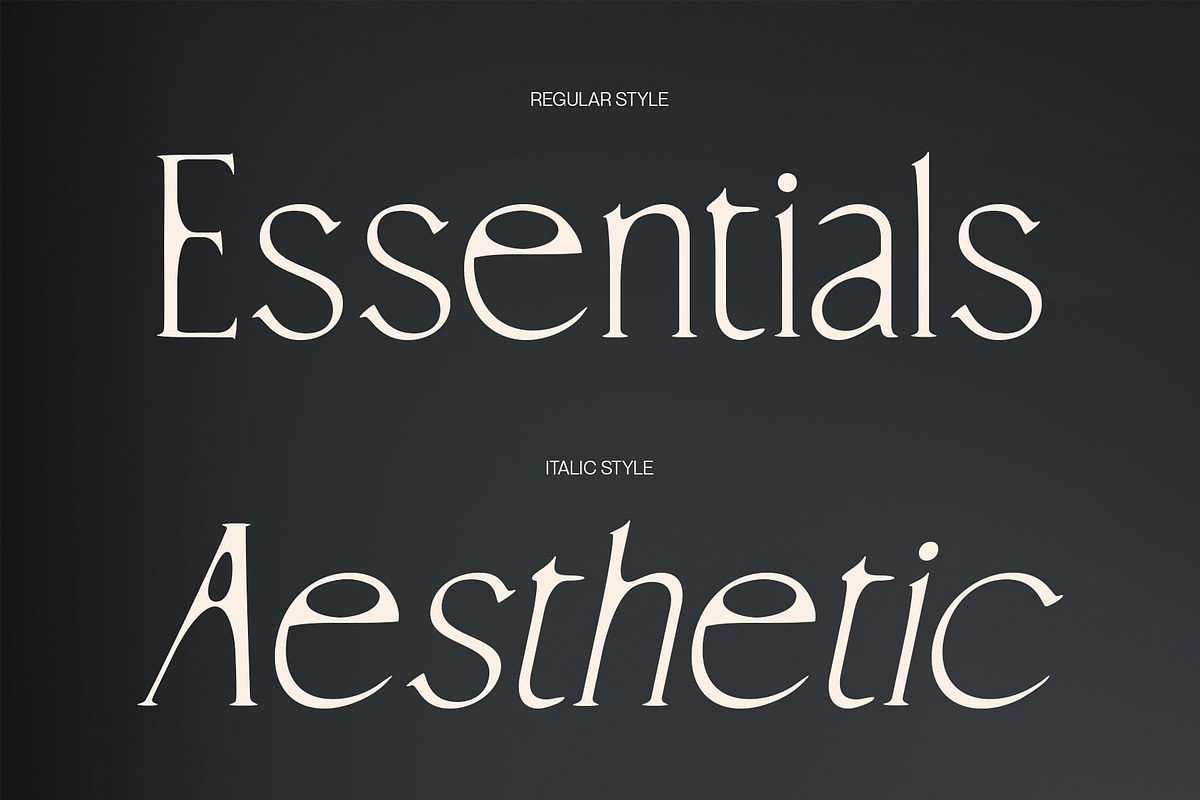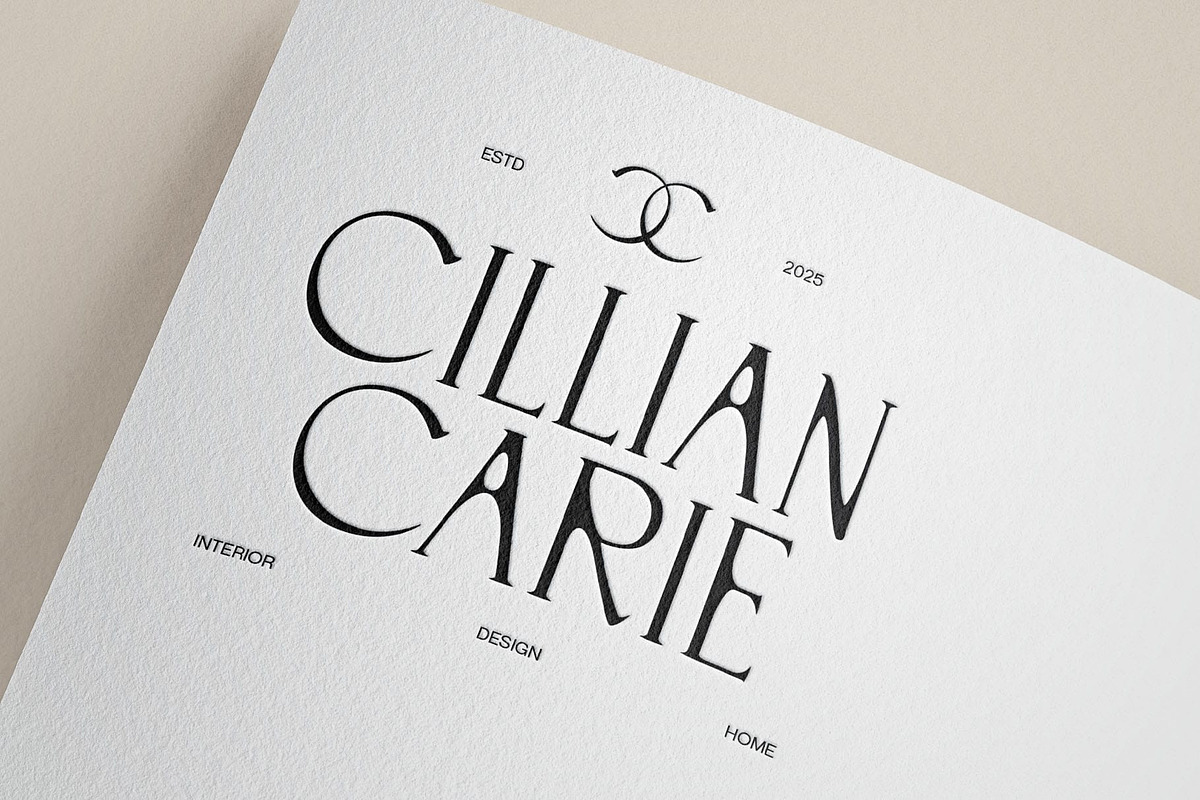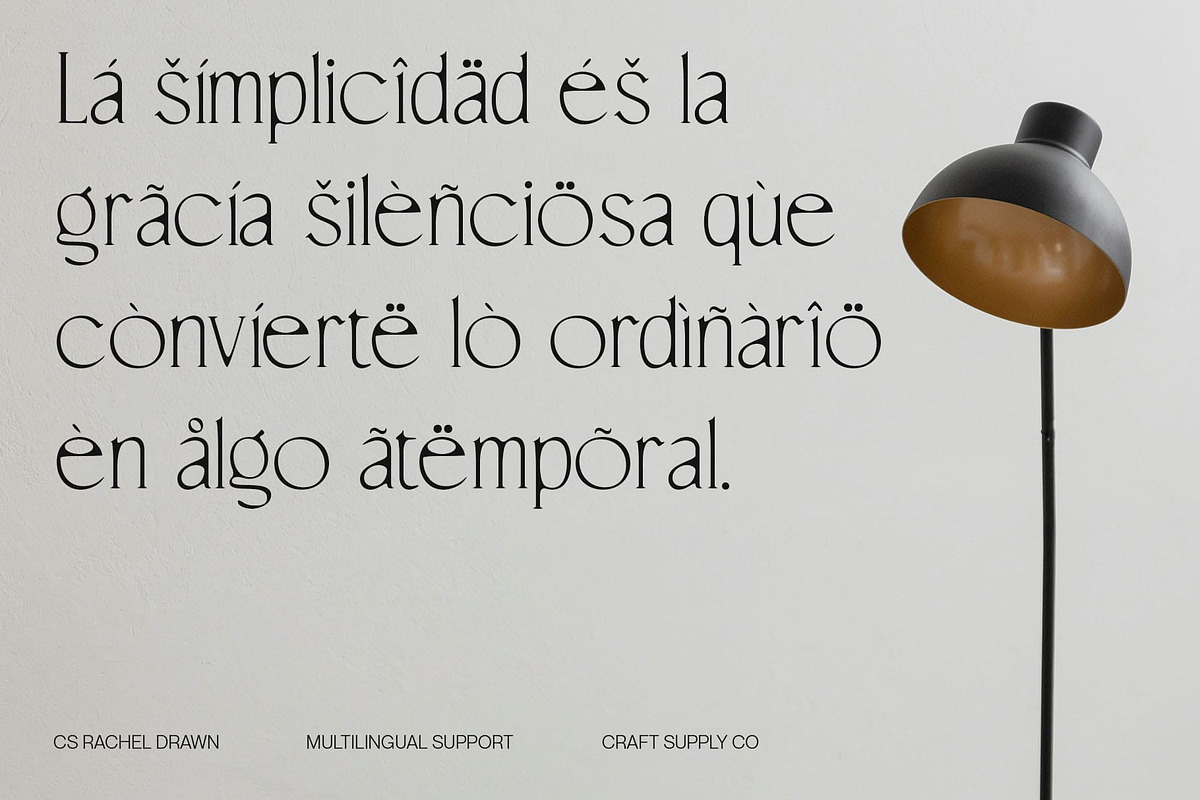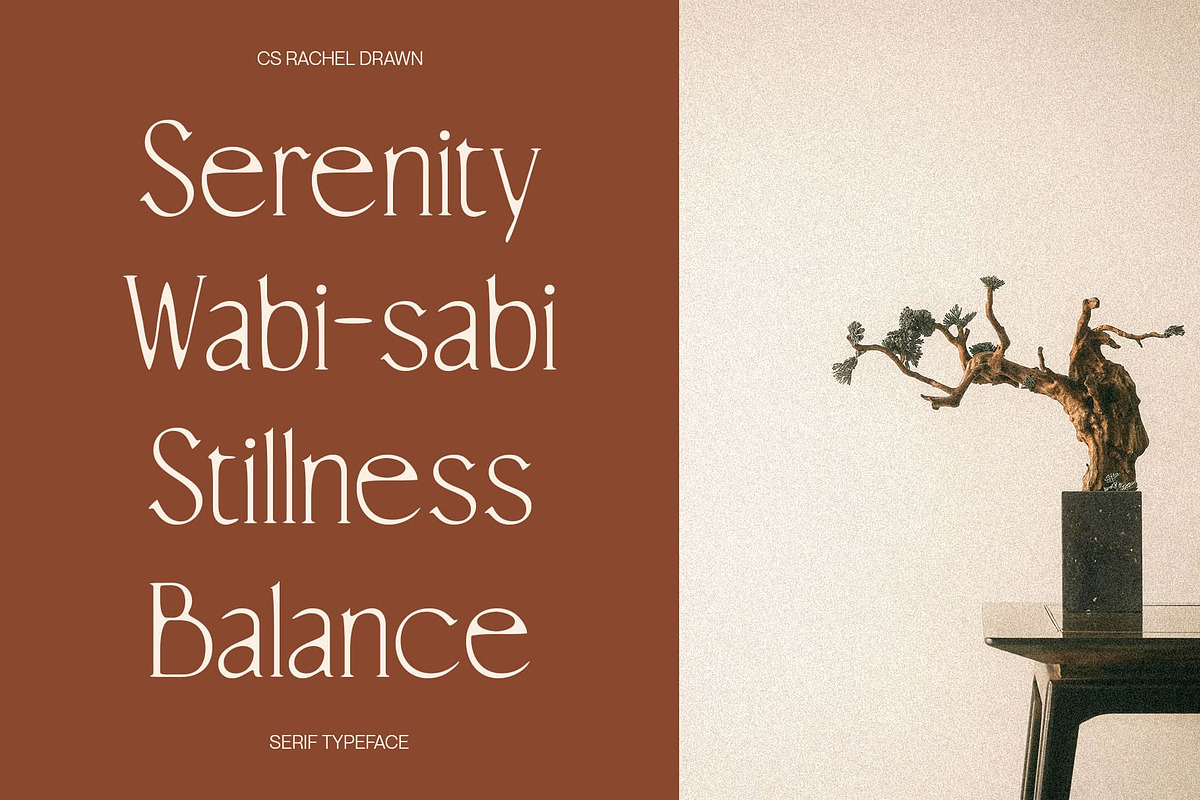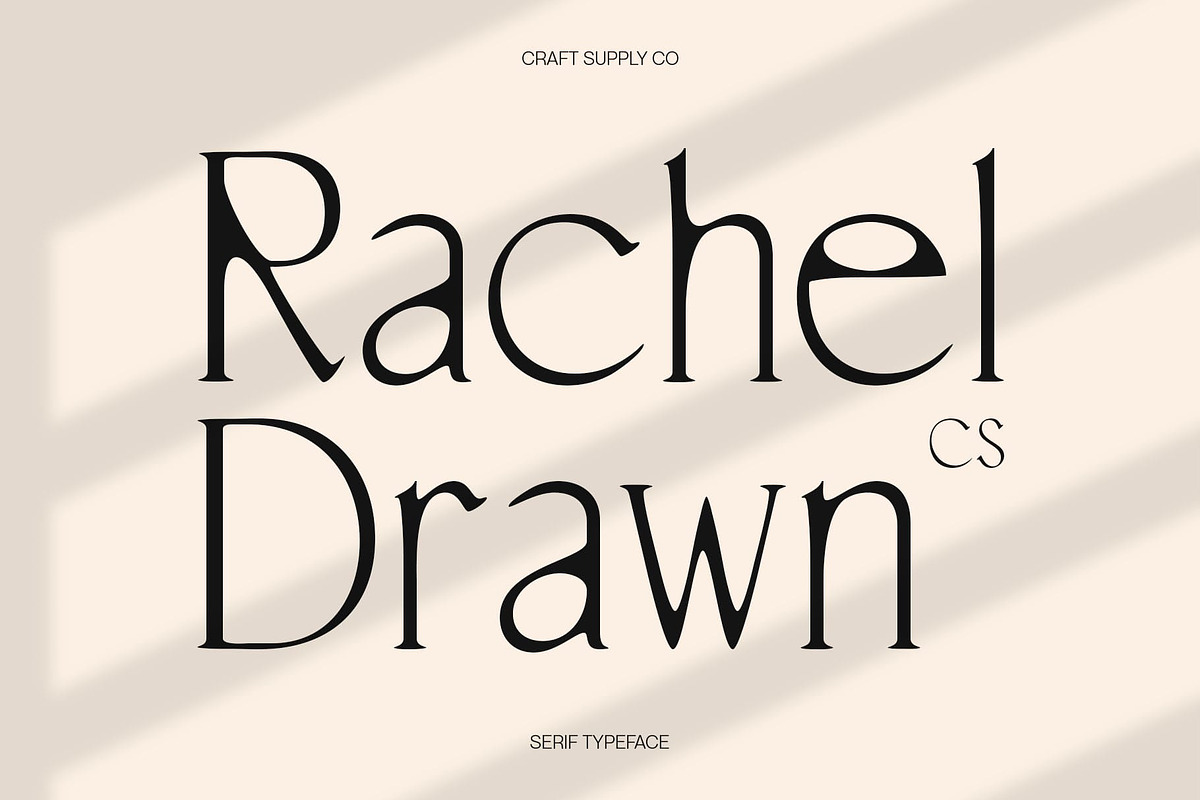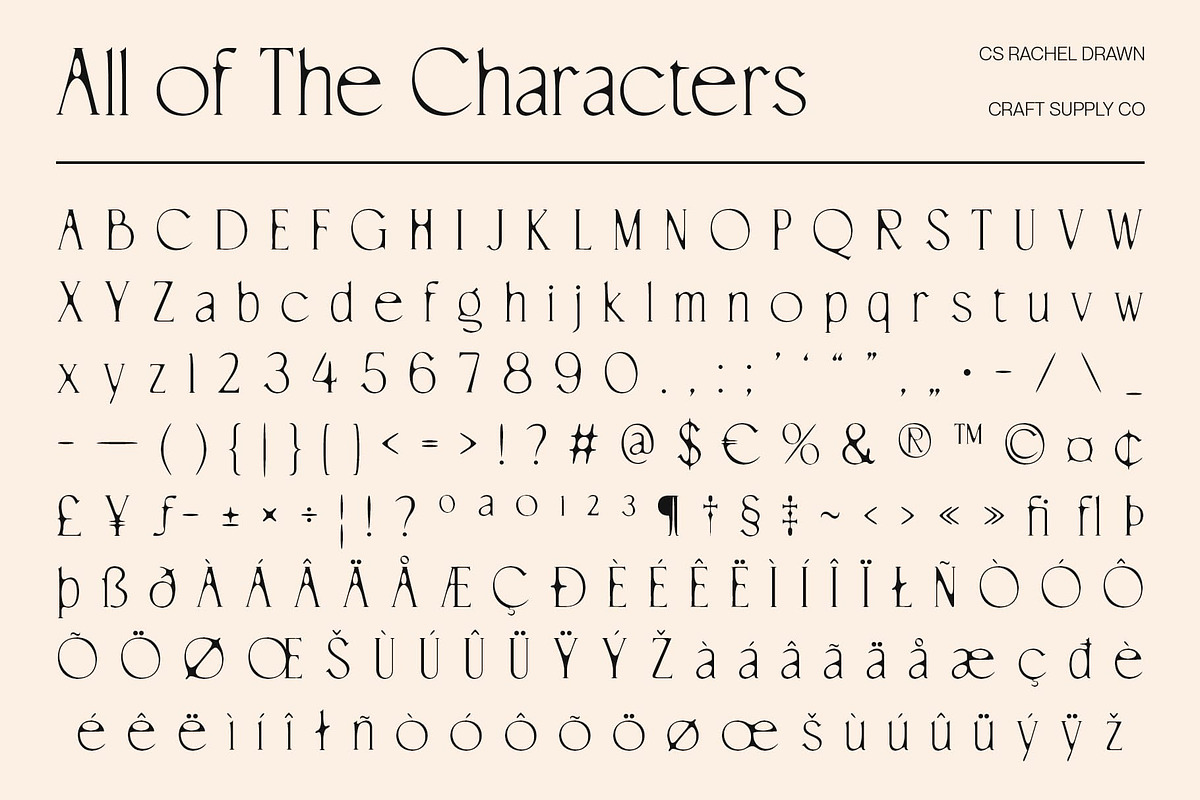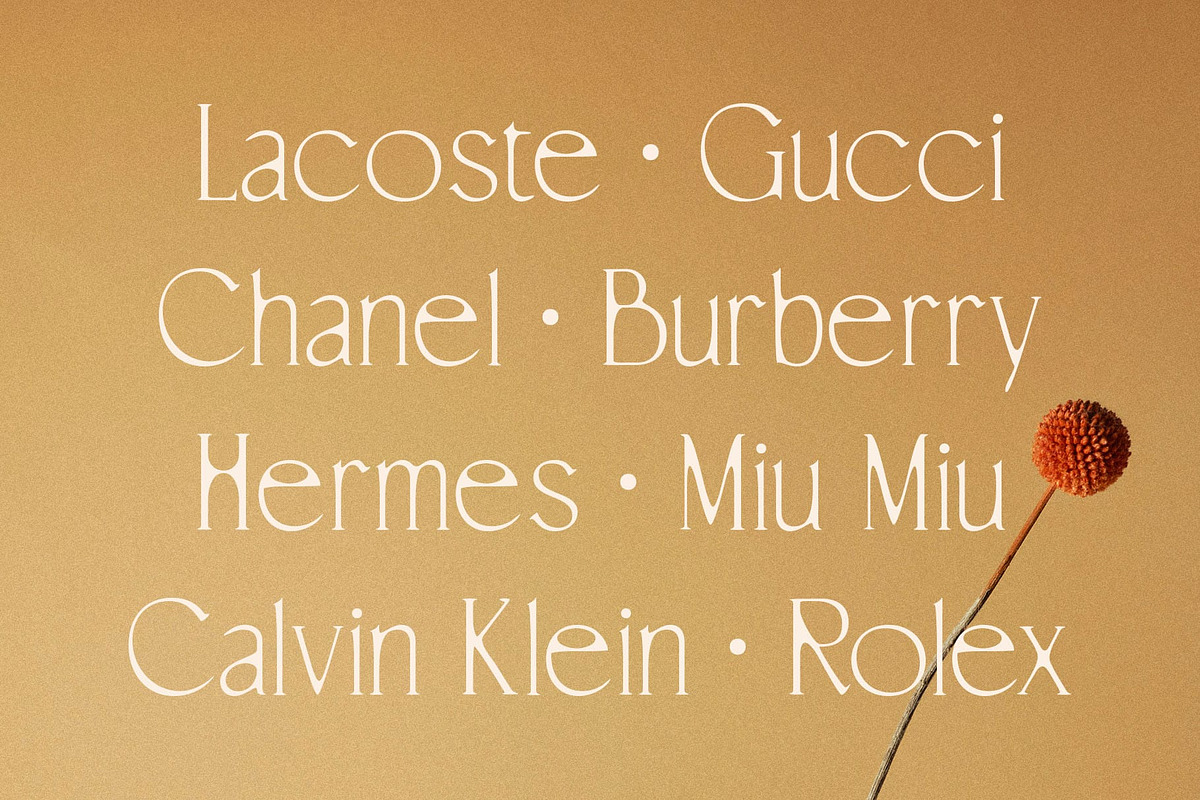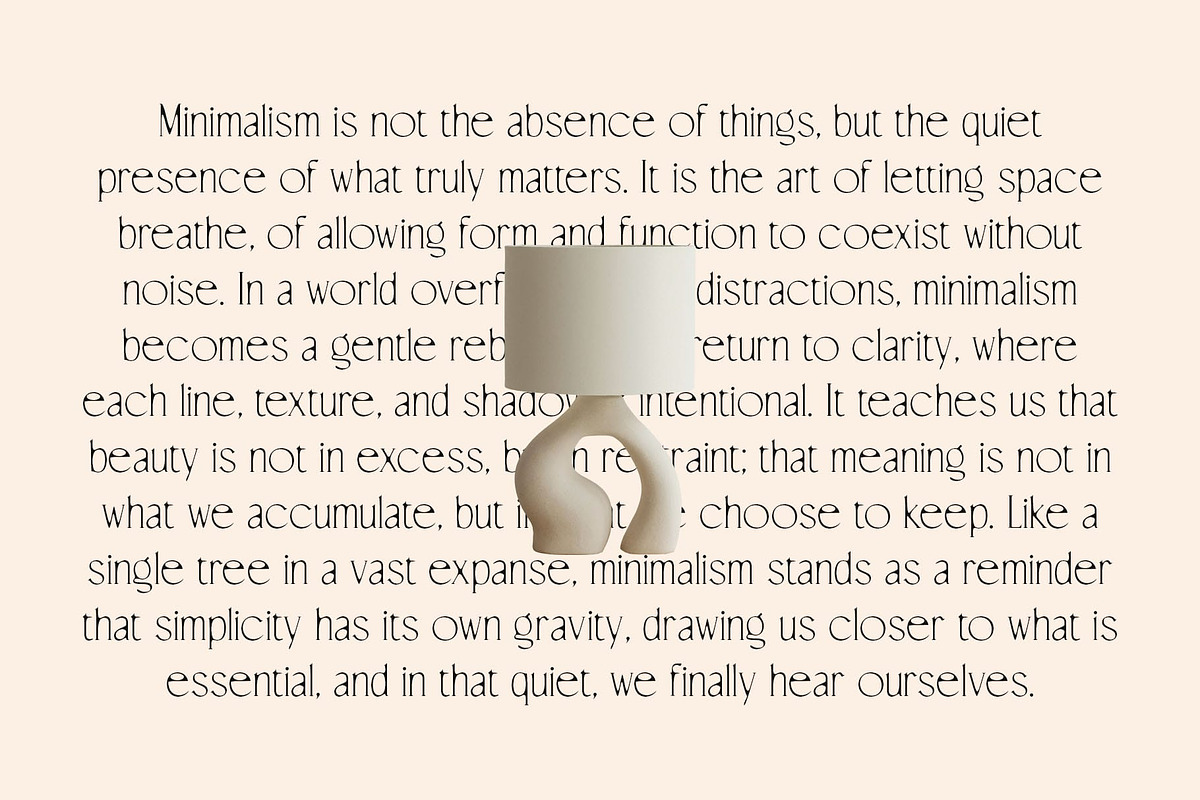
CS Rachel Drawn
CS Rachel Drawn: Modern Serif with Handmade Elegance
Modern Serif Font with Drawn Effect CS Rachel Drawn is a modern serif font featuring slim, clean letterforms and gracefully elongated serifs. Its contemporary structure exudes elegance and refinement, making it perfect for designs that aim to convey sophistication.
Handmade Drawn Texture Enhanced with a subtle drawn effect, each character gains a handcrafted touch that adds depth and individuality. This artistic texture transforms the modern serif forms into visually engaging typography with personality.
Refined and Sophisticated Style The combination of elongated, slender forms and handmade texture allows this beautiful and charming font to balance modernity with artistic expression. It creates a refined aesthetic that feels both polished and uniquely memorable.
Ideal for Luxury and Creative Projects This sophisticated and stylish font excels in luxury branding, editorial layouts, posters, and creative projects. Its versatile design ensures that every application maintains sophistication, elegance, and a distinctive visual presence. Its modern elegance and handcrafted nuances make it suitable for projects that aim to communicate refinement, creativity, and memorability.
Elevate Your Designs with Artful Precision With its harmonious proportions, graceful serifs, and handcrafted nuances, this artistic and handmade font provides designers with a font that communicates both professionalism and artistry. It’s a perfect choice for projects seeking a modern, elegant, and expressive typographic identity.